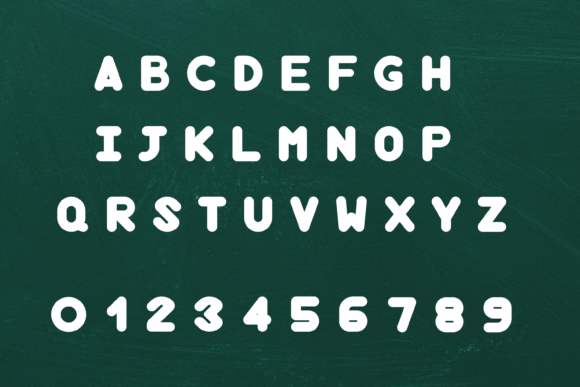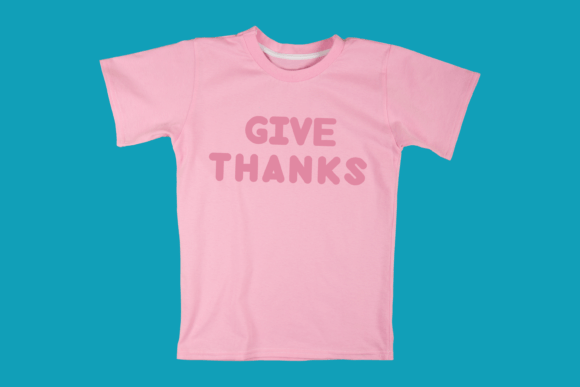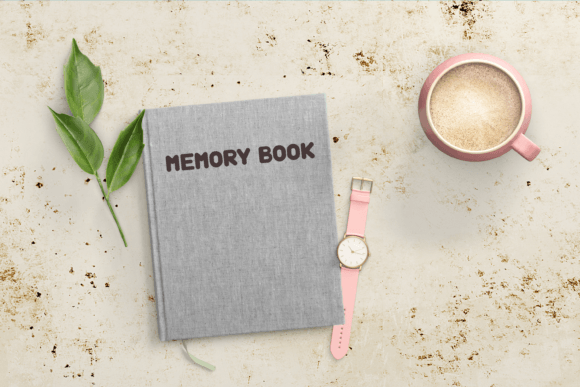
Introducing Capsule Font: The Ultimate Choice for Modern Designs
In the world of typography, font styles play a crucial role in conveying the message and aesthetic of a brand. With numerous font options available, designers and crafters are constantly on the lookout for unique and impactful fonts that can elevate their designs. If you’re looking for a font that exudes modernity and sophistication, look no further than the Capsule Font. Designed with a sleek and contemporary look, this font is perfect for those who want to make a statement with their designs.
The Inspiration Behind Capsule Font
The Capsule Font is aptly named, inspired by the shape of a capsule. The font’s design is characterized by clean lines, smooth curves, and a bold presence that demands attention. The large, bold lettering and numbers make it an ideal choice for headlines, titles, and any design element that requires a strong visual impact. The font’s sleek and modern look is reminiscent of futuristic designs, making it perfect for brands that want to convey innovation and forward-thinking.
Key Features of Capsule Font
The Capsule Font boasts several key features that make it an attractive choice for designers and crafters:
- Clean and Beautiful Design: The font’s clean and beautiful design makes it perfect for a wide range of applications, from branding and advertising to marketing materials and more.
- Easy-to-Read Letters and Numbers: The font’s letters and numbers are designed to be easy to read, making it perfect for body text and other applications where readability is crucial.
- Large, Bold Lettering and Numbers: The font’s large, bold lettering and numbers make it perfect for headlines, titles, and other design elements that require a strong visual impact.
- Versatility: The Capsule Font is versatile and can be used for a wide range of applications, from digital designs to print materials.
Perfect for Branding, Advertising, and Marketing Materials
The Capsule Font is an excellent choice for branding, advertising, and marketing materials. Its modern and sleek design makes it perfect for:
- Logos and Wordmarks: The font’s bold and clean design makes it perfect for logos and wordmarks that require a strong visual impact.
- Headlines and Titles: The font’s large, bold lettering and numbers make it perfect for headlines and titles that require attention-grabbing designs.
- Advertising and Marketing Materials: The font’s easy-to-read letters and numbers make it perfect for advertising and marketing materials, such as brochures, flyers, and posters.
Why Choose Capsule Font?
- Unique and Impactful Design: The Capsule Font’s unique and impactful design sets it apart from other fonts, making it perfect for designers and crafters who want to create stunning designs.
In conclusion, the Capsule Font is an excellent choice for designers and crafters who want to create modern and impactful designs. With its sleek and clean design, large, bold lettering and numbers, and easy-to-read letters and numbers, this font is perfect for branding, advertising, and marketing materials. Whether you’re looking to create a stunning logo, headline, or marketing material, the Capsule Font is the ultimate choice.